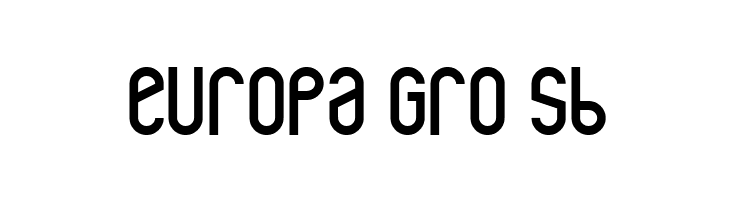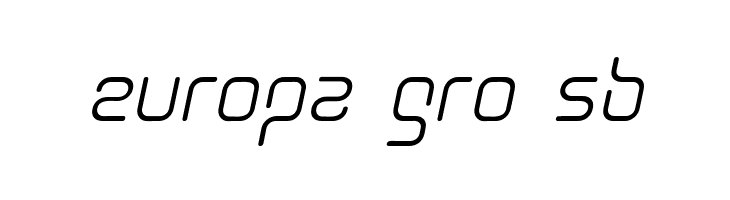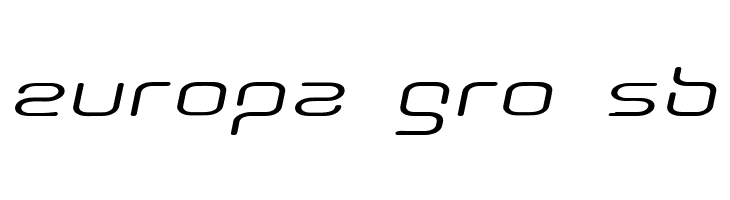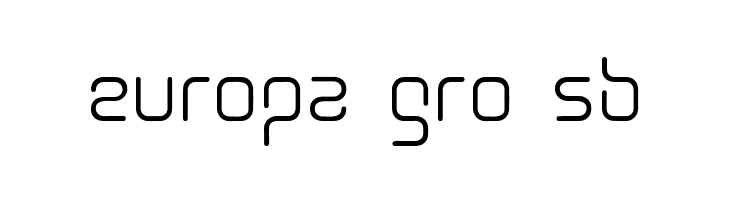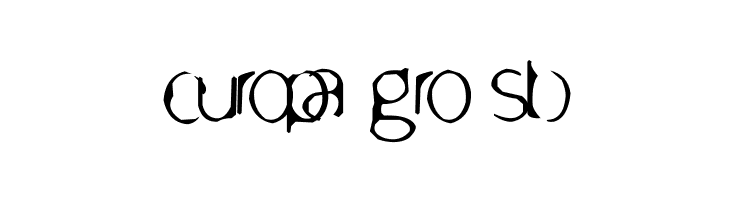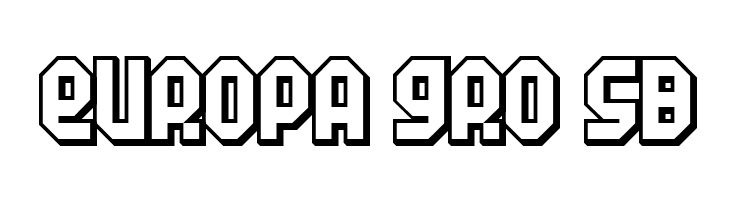
A modern, geometric font with rounded edges and consistent stroke widths.
A bold, rounded font with a friendly and approachable style.
A futuristic, geometric, and oblique font with outlined characters.
A modern, oblique font with sleek lines and geometric precision.
A futuristic, expanded, and oblique font with a sleek, modern design.
A modern, geometric font with a sleek, futuristic design.
A bold, geometric font with a three-dimensional effect and angular design.